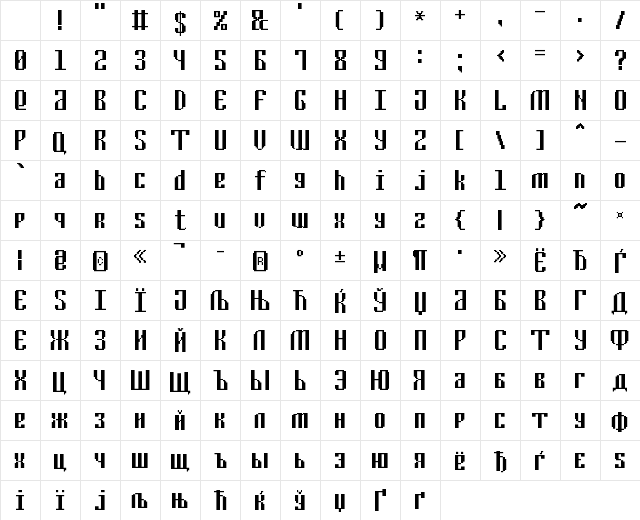
Complete Cyrillic Pixel-7 Regular glyph index. Displaying only characters natively supported by Cyrillic Pixel-7 Regular font.
Cyrillic Pixel-7 is rooted in pixel-grid construction, making it a natural fit for game UI, retro computing aesthetics, and digital nostalgia projects.